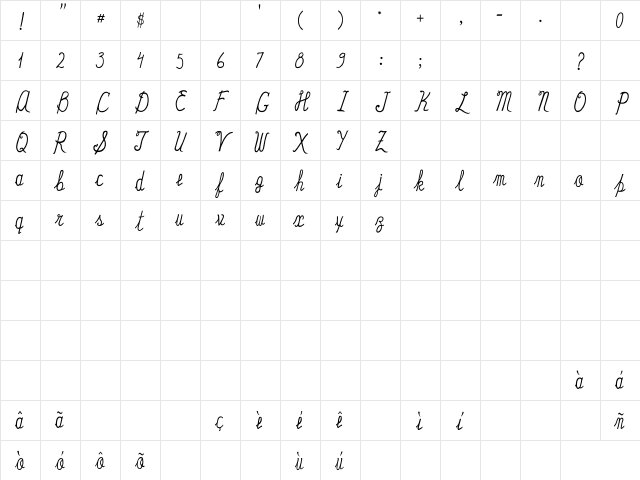
TiaOlga1-manuscript Regular Font Preview
TiaOlga1-manuscript Regular
TiaOlga1-manuscript Regular Font Details
Design Context for TiaOlga1-manuscript Typeface
TiaOlga1-manuscript flows with the natural rhythm of handwritten lettering, making it ideal for designs that call for warmth and personal expression.
Font Pairing: Combine TiaOlga1-manuscript with a simple geometric sans for maximum contrast — the tension between flowing curves and clean structure is a classic typographic pairing.
Pro Tip: Pair TiaOlga1-manuscript with a clean sans-serif for supporting text. The contrast between fluid script and geometric structure creates an elegant typographic hierarchy.